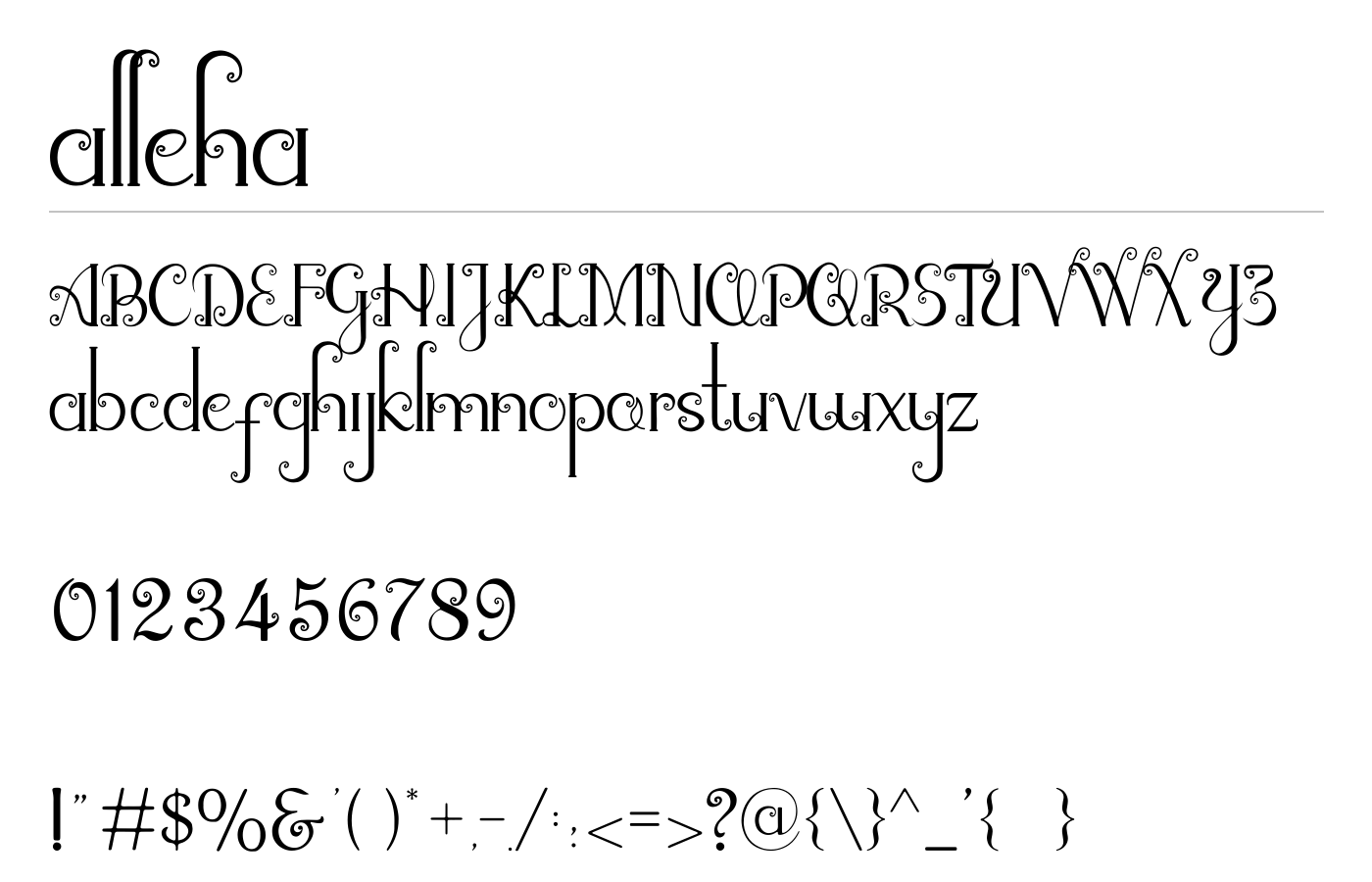
Alleha is a decorative serif font with thin, elegant strokes and whimsical curls on many characters, giving it a playful yet refined personality. Its tall, narrow letterforms and delicate details make it ideal for eye-catching headlines, logos, or creative branding where a unique, artistic flair is desired. This font works best in designs that want to convey sophistication with a touch of charm and individuality.
| Designer | Kapri Prianto |